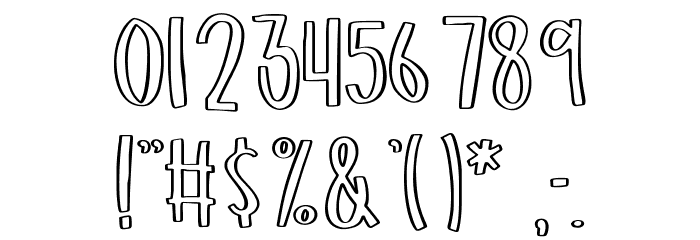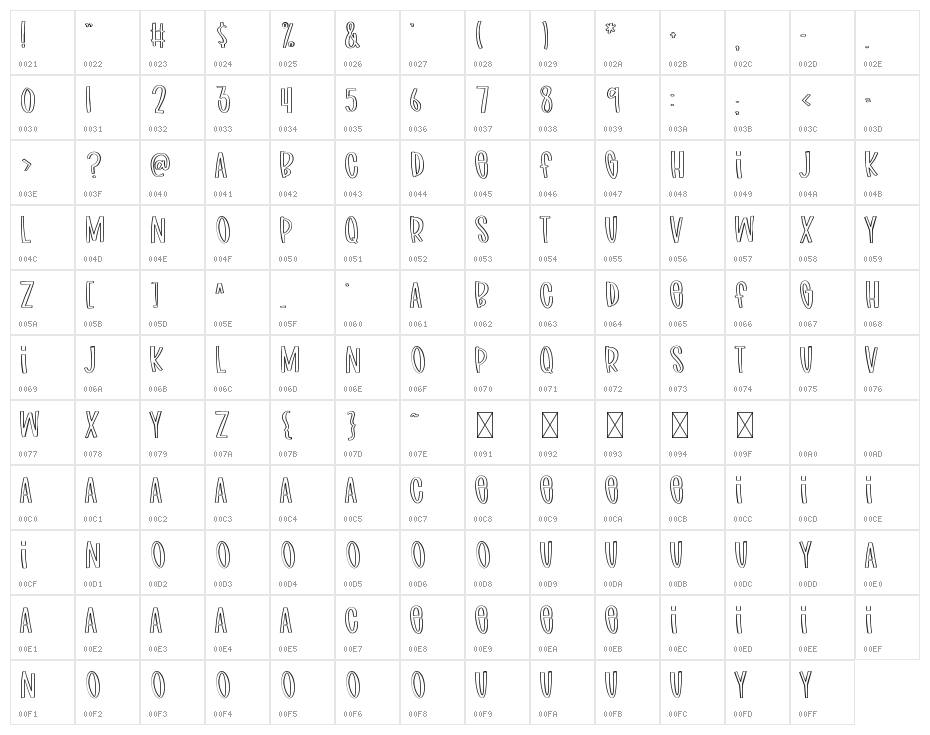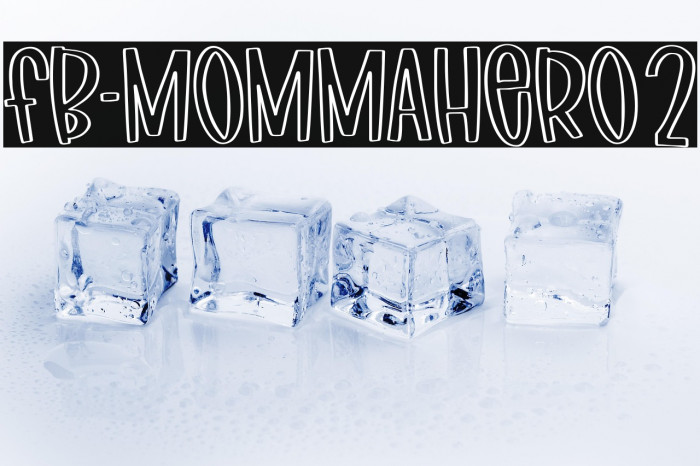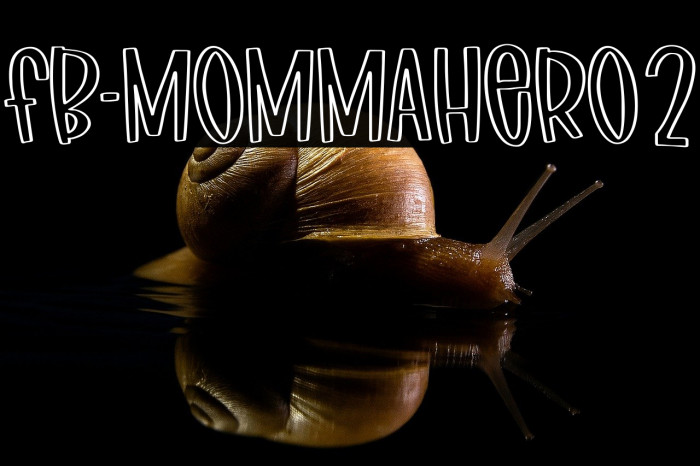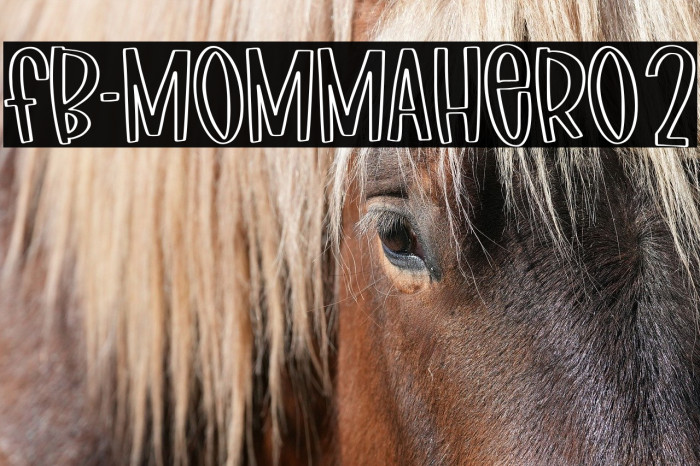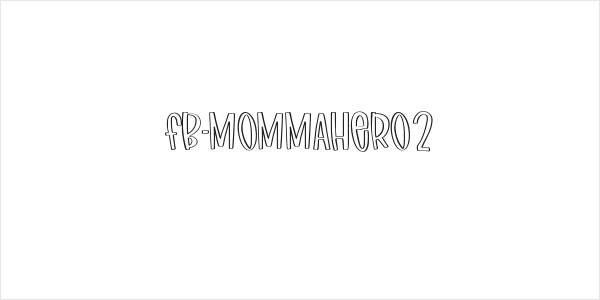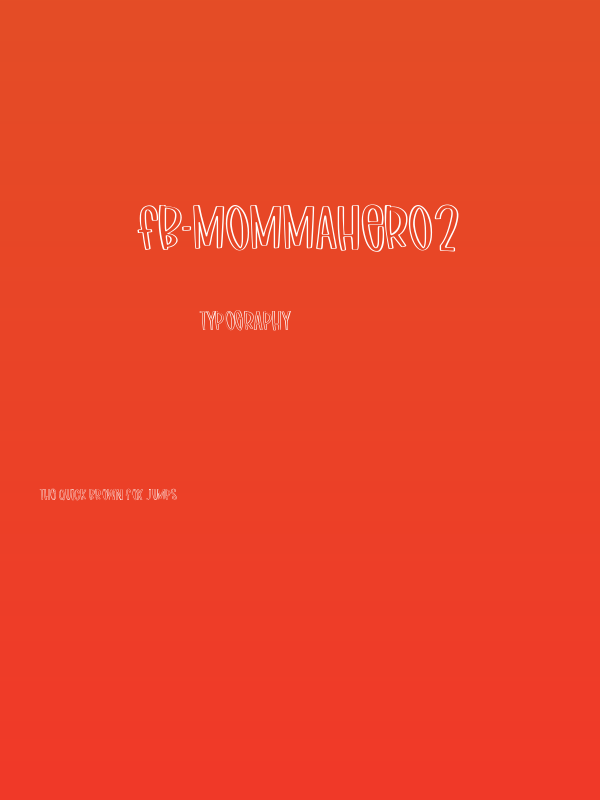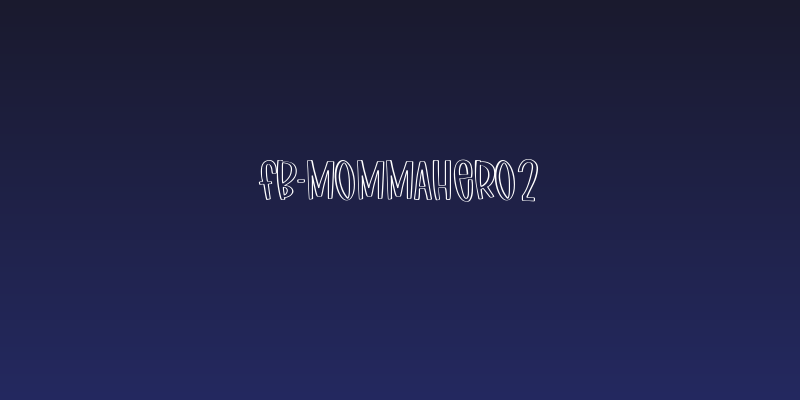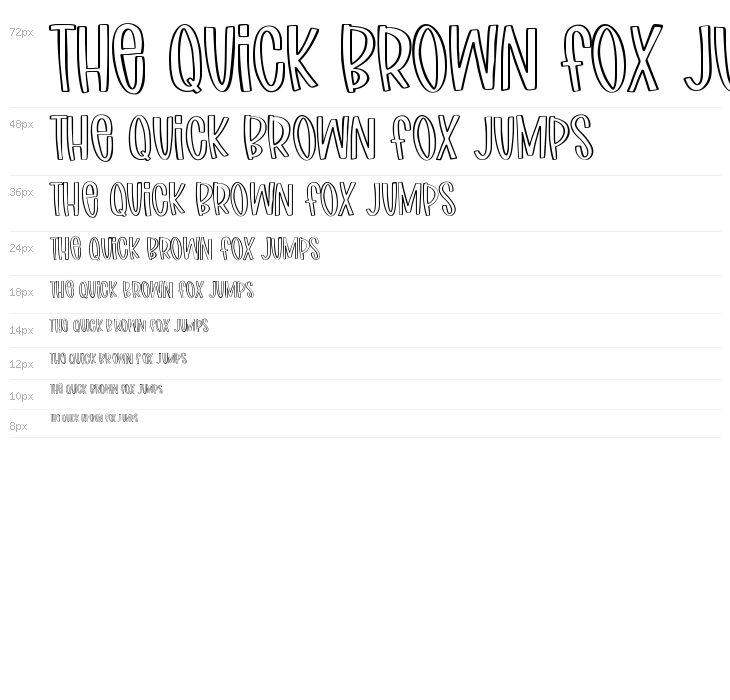
FB-MommaHero2 Font
FB-MommaHero2 Description
This playful and energetic font features bold, hand-drawn letters with a whimsical outline style. Each character is uniquely crafted, giving a lively and informal feel. The uppercase and lowercase letters maintain a consistent height, while the numbers and special characters blend seamlessly into the overall design. The font's irregular strokes and playful curves make it ideal for projects that require a touch of fun and creativity. Its distinctive style is perfect for capturing attention and adding a personal touch to any design.
| Proposed Projects | Ideal for children's book covers, playful posters, greeting cards, and creative branding. |